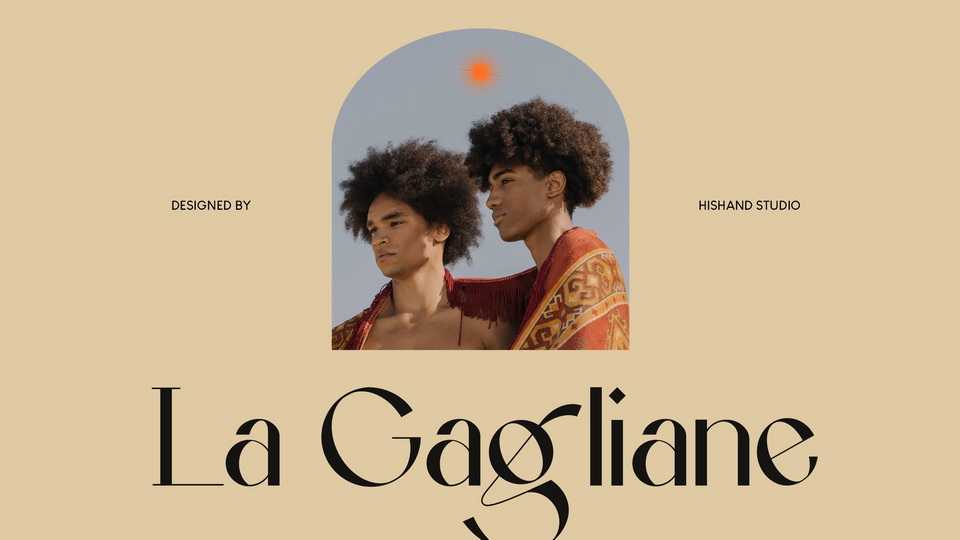
Download La Gagliane font, a beautiful typeface that look aesthetic and elegant. La Gagliane is perfect for logo, ads, product packaging, social media, clothing brand, magazine headers and more.